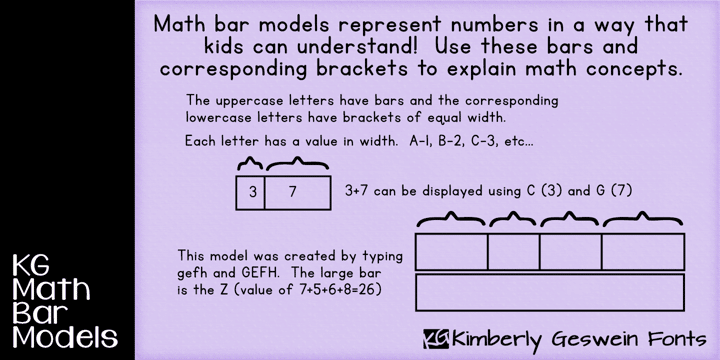
KG Math Bar Models Font was created specifically for educators and parents who are using the bar model method of teaching math word problems to children… This font easily creates standard bar models in a variety of configurations.